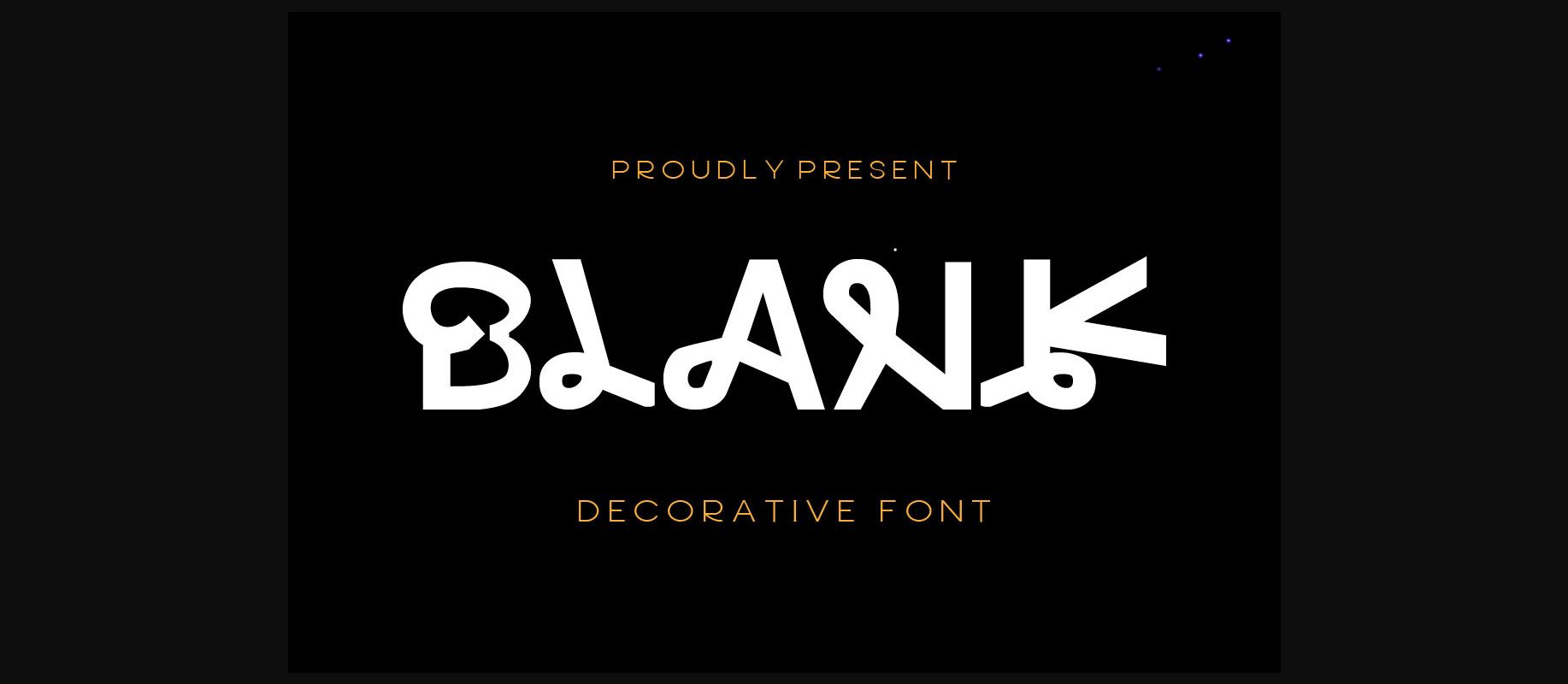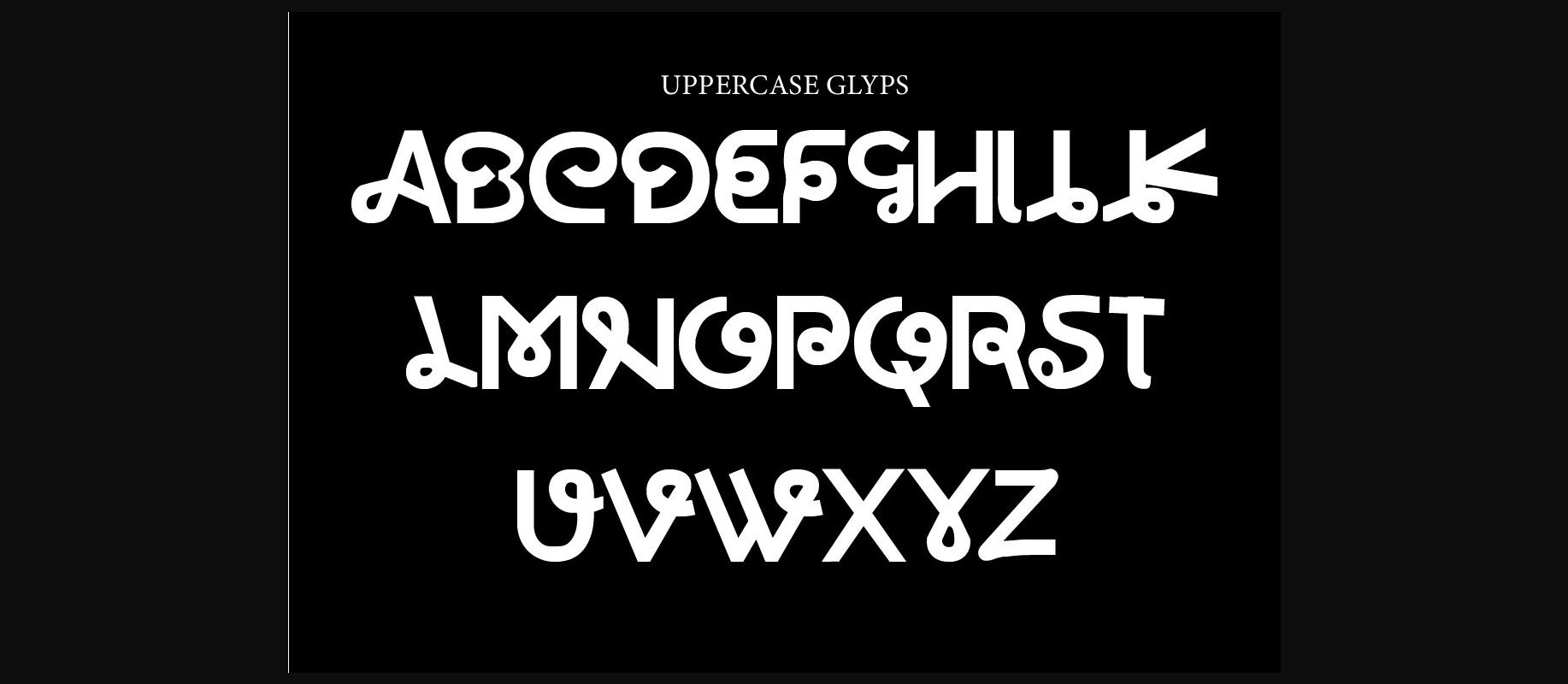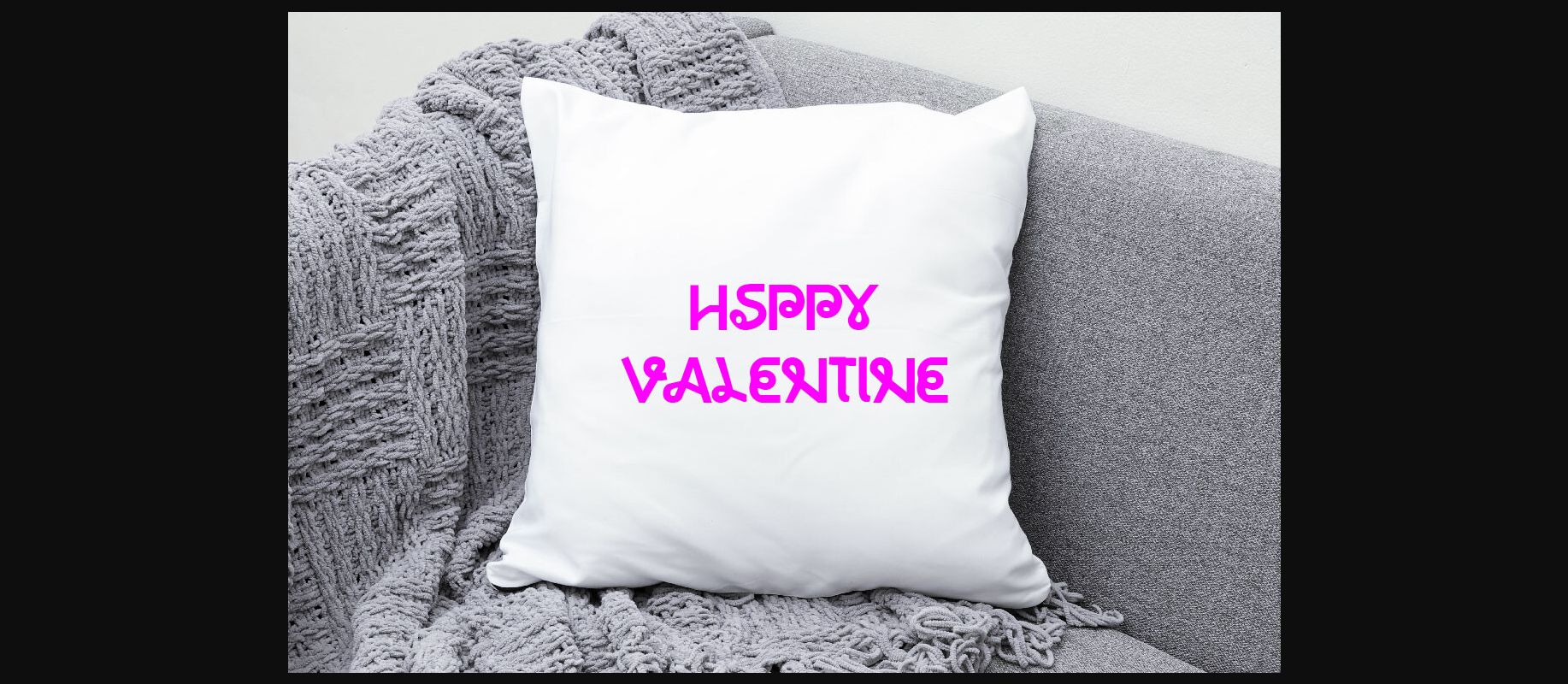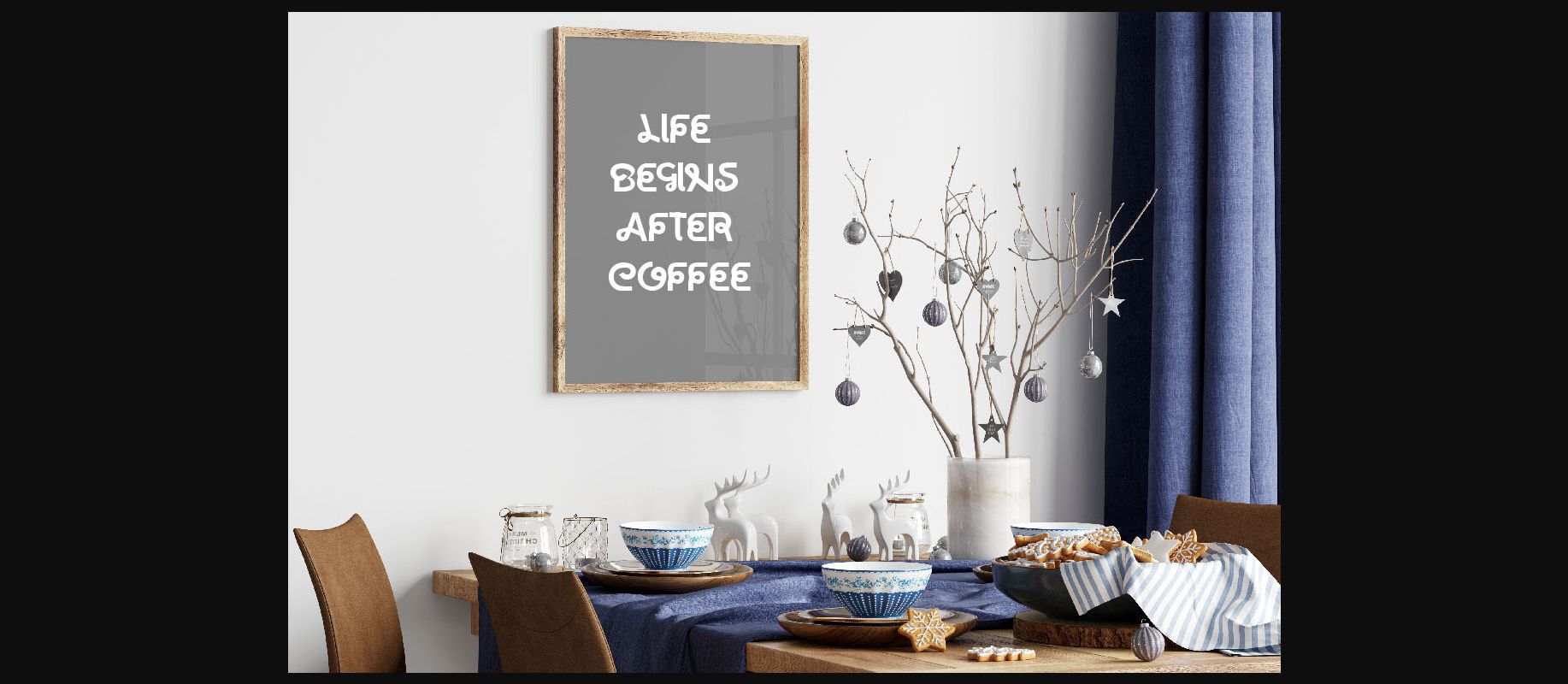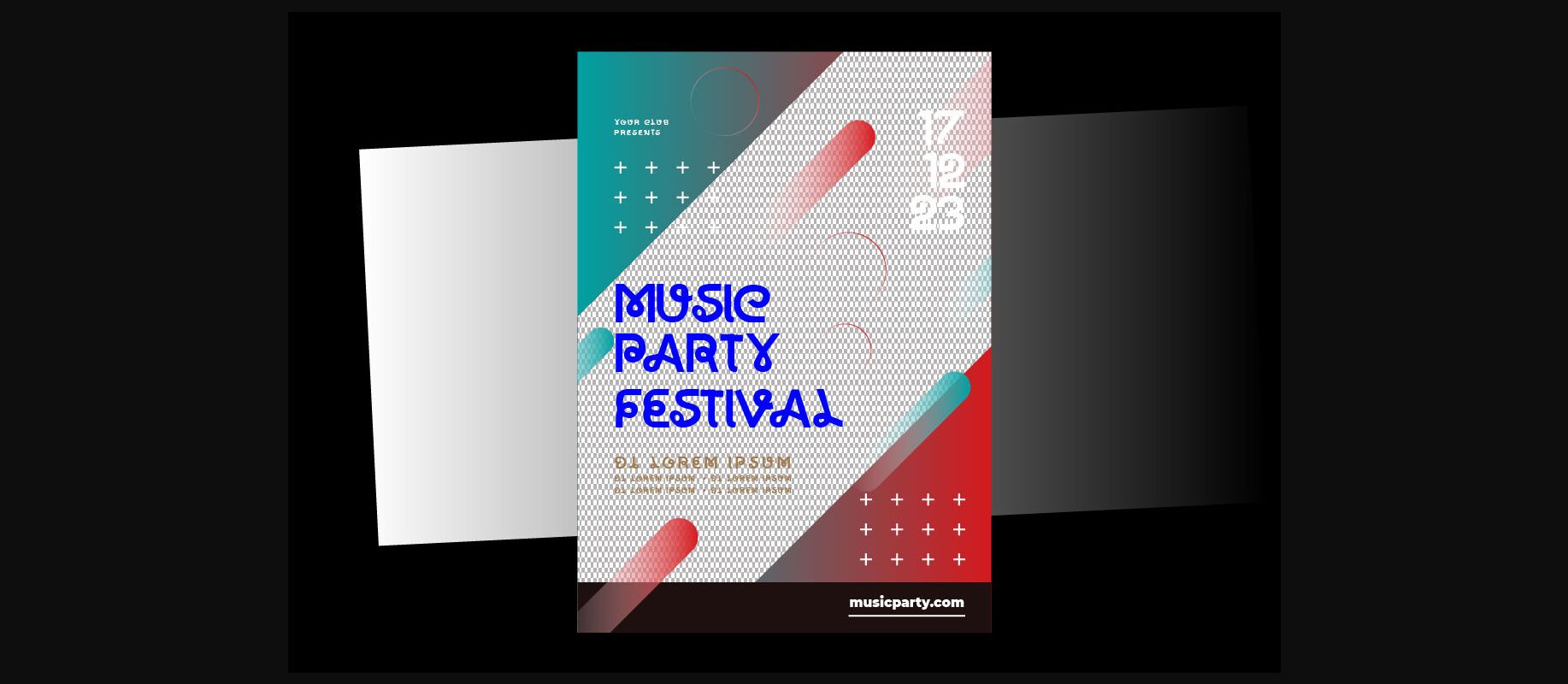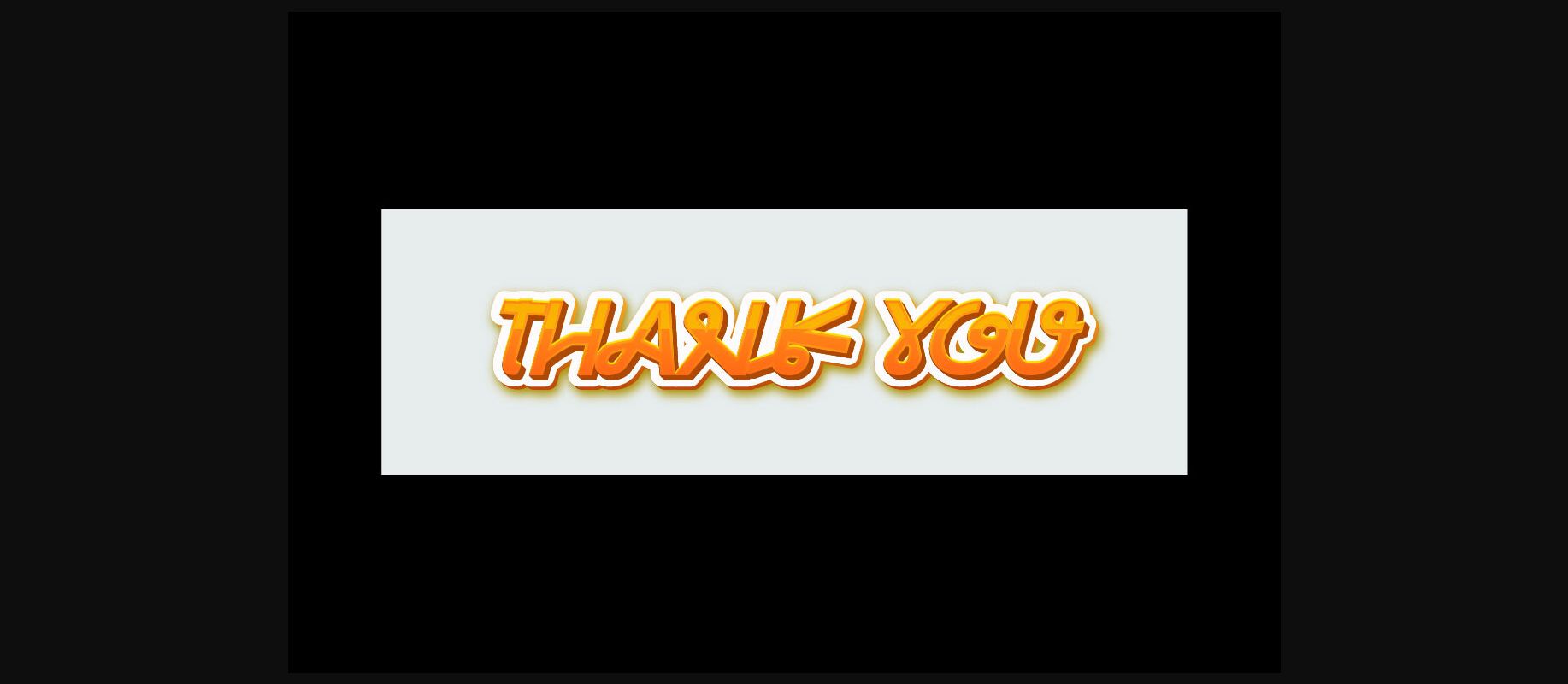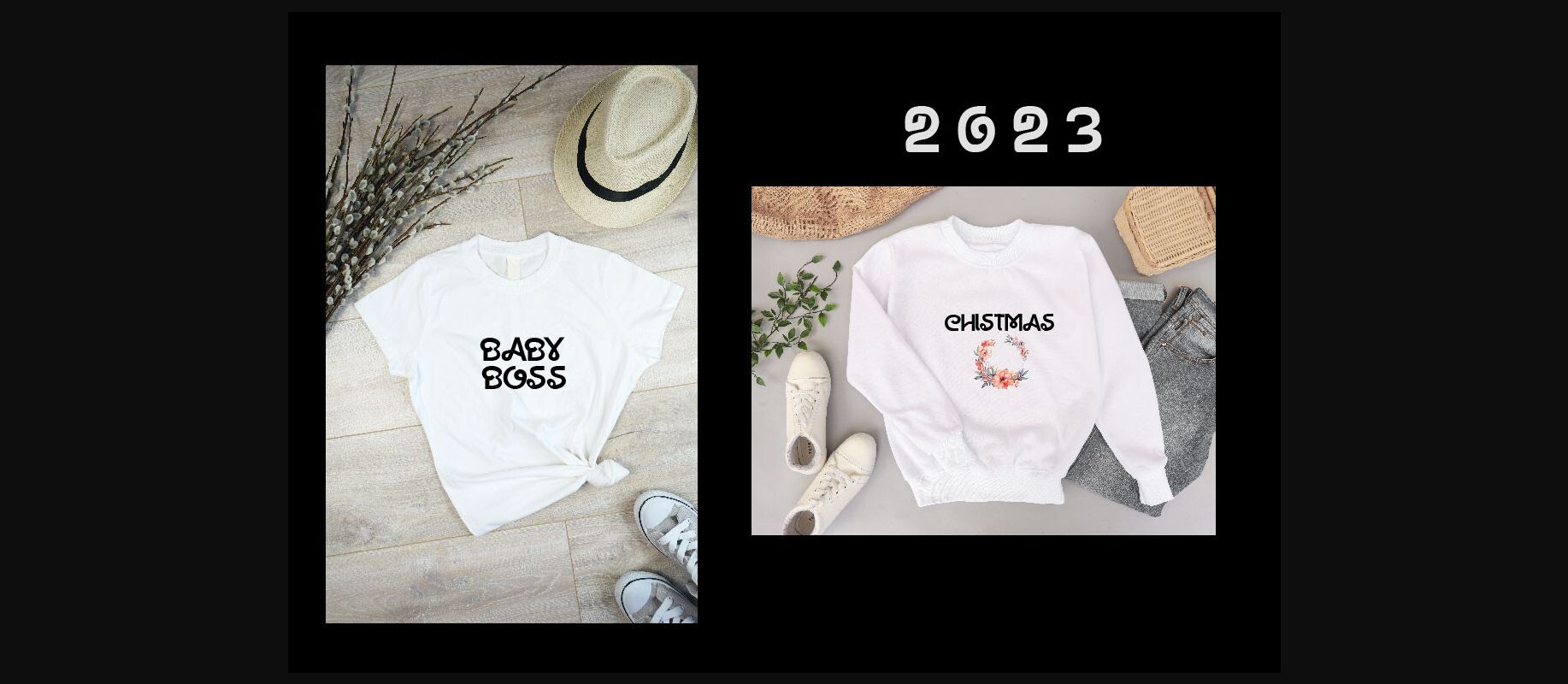
HomeDecorative FontsBlank Font Decorative Fonts Blank Font FacebookXPinterestWhatsApp 1 of 9 ... Blank Font Poster 2... Blank Font Poster 3... Blank Font Poster 4... Blank Font Poster 5... Blank Font Poster 6... Blank Font Poster 7... Blank Font Poster 8... Blank Font Poster 9... About Blank Font Blank is a unique and interesting decorative font. A little bit quirky, this font looks incredibly adept on a wide variety of contexts! DOWNLOAD NOW People also explored Roche Shirt Script Font Blind Matte Script Font Herbert Font Bread Palace Font Comely Font Love Batu City Font Crafty Beach Font Skull Dutchman Font Betterday Font 563 0 TagsBlankBlank Font Previous articleLittle Mermaid Monogram FontNext articleHello Christmas Font LEAVE A REPLY Cancel reply Comment: Please enter your comment! Name:* Please enter your name here Email:* You have entered an incorrect email address! Please enter your email address here Website: Save my name, email, and website in this browser for the next time I comment. Personal Use Free Evelyne Personal Use Free Read more about this font Kumadinya Personal Use Free Read more about this font Baveuse Personal Use Free Read more about this font Wordan Personal Use Free Read more about this font BLOG Best Fonts for T-Shirt Design – Top 2025 Picks In 2025, t-shirt design has become more than just fashion—it's a form of self-expression. Whether you're... Exploring Font Trends Top 10 Handwritten Fonts That Elevate Your Designs Top 7 Google Fonts Alternatives for Faster and Privacy-Friendly Web Design (2025)